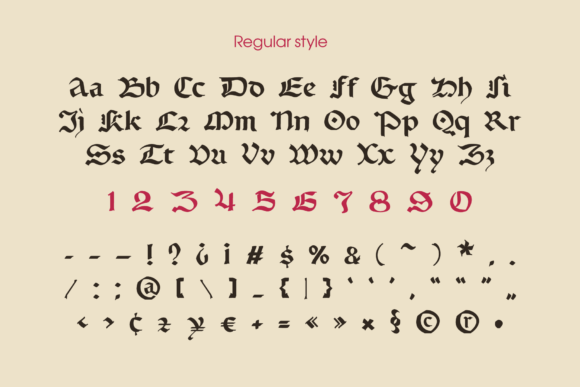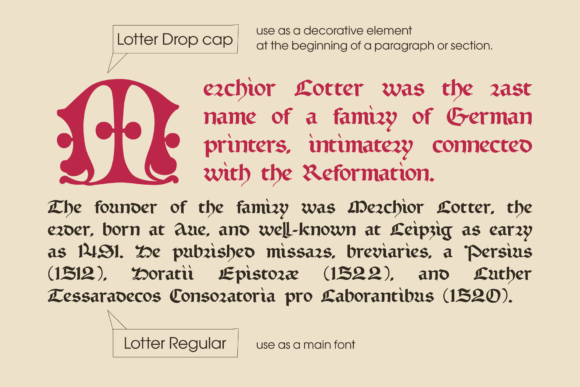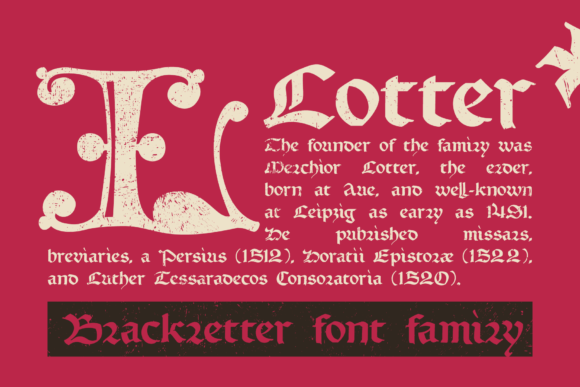
Lotter Font
Designer: kaer_cf
Lotter font has two styles: Dropcap and Regular. It’s all you need to precisely imitate medieval-style text. Use Drop cap style as a decorative element at the beginning of a paragraph or section, and the other parts of the paragraph should be in Regular style for obtaining the typical Middle-Ages effect!